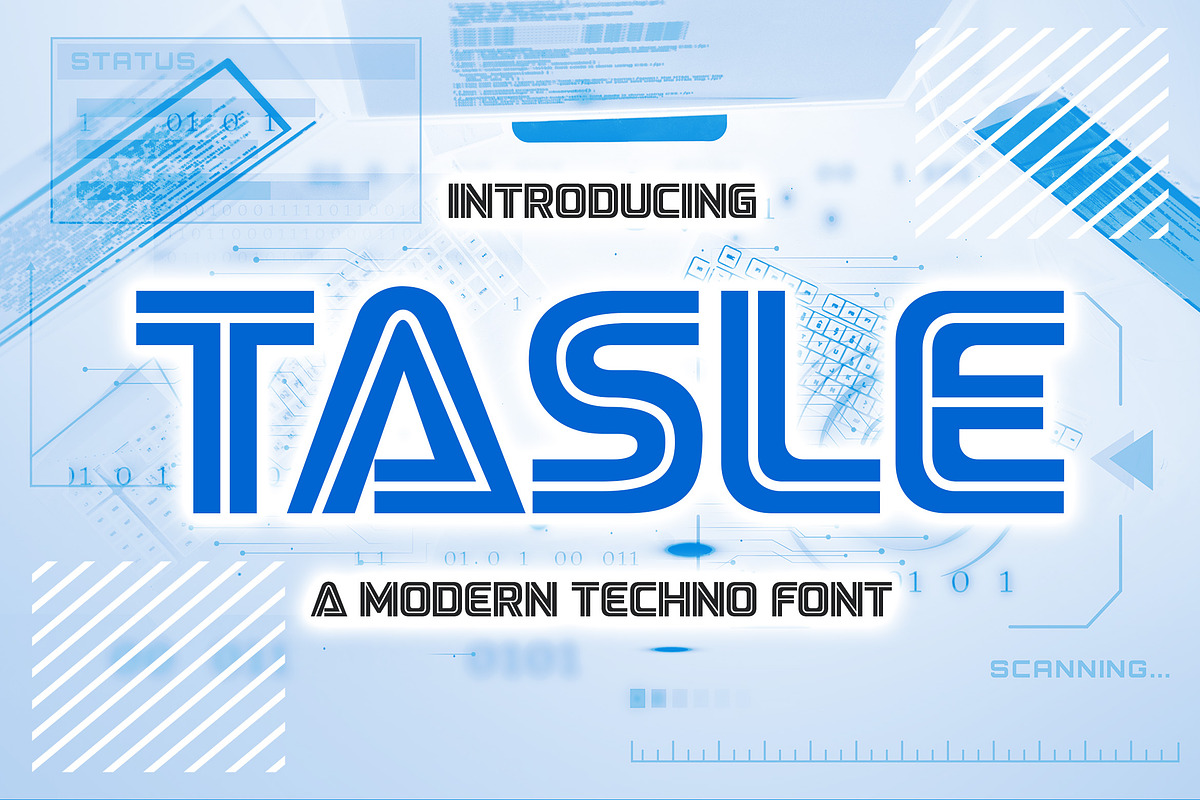
Tasle
Introducing Tasle! a modern futuristic san serif display font from Drizy! It's suitable for futuristic and modern theme of your project.
Tasle Features: Numeral Multilingual Ligatures & Punctuations